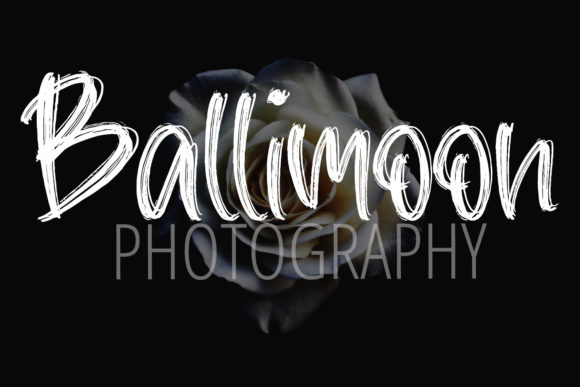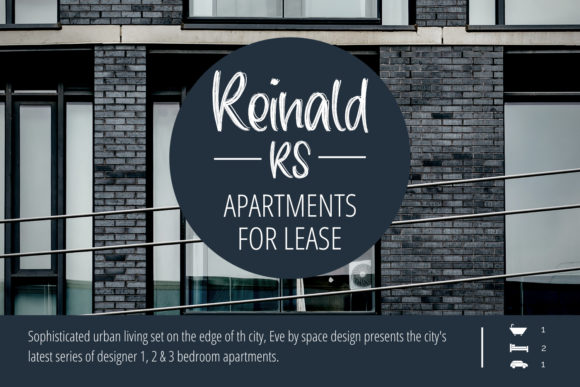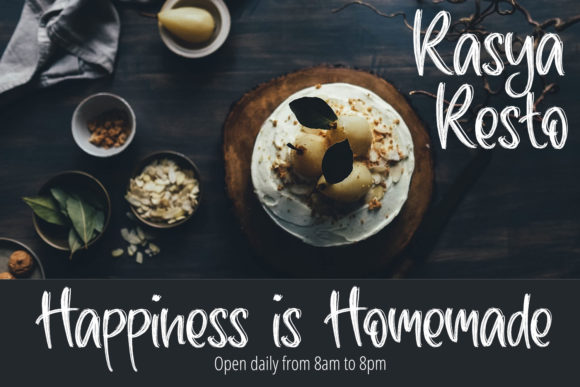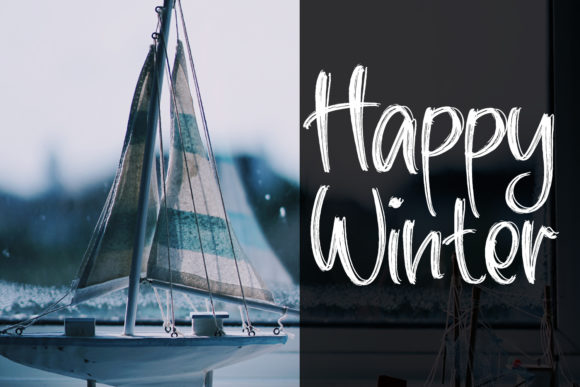
Smart Brush Font
About Smart Brush Font
Smart Brush is a neat and casual handwritten font. It is the best choice for creating eye catching logos, branding and quotes. Every letter has a unique and beautiful touch, which will make your design come alive!